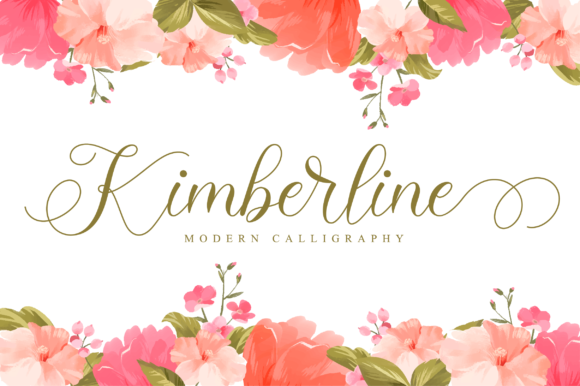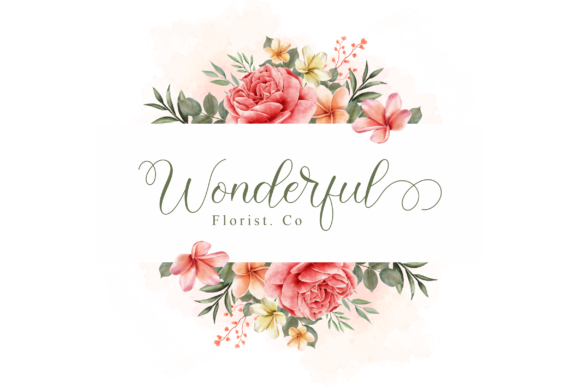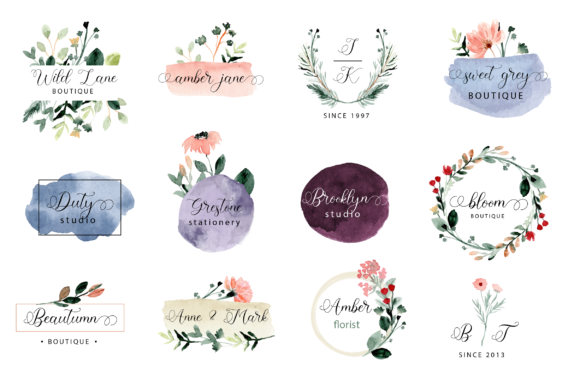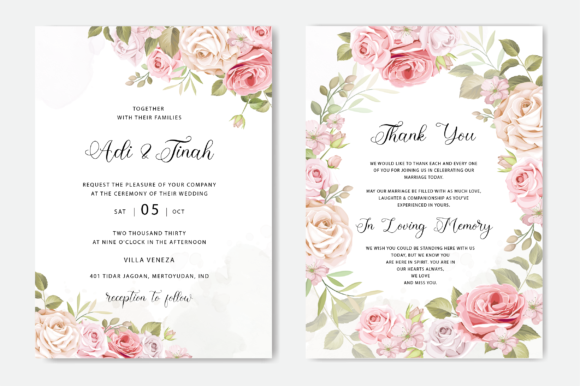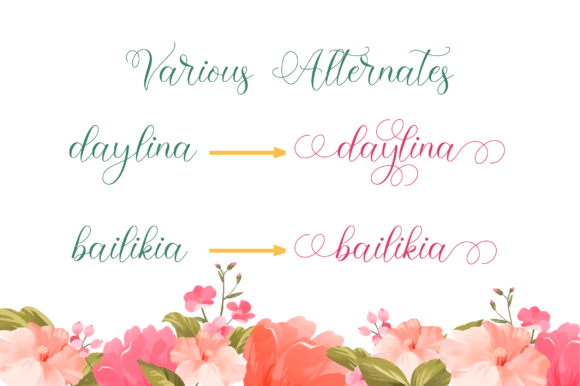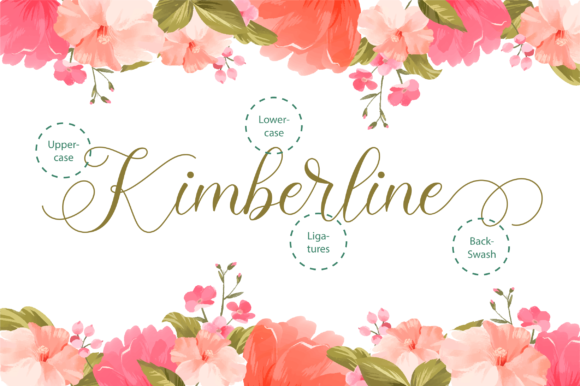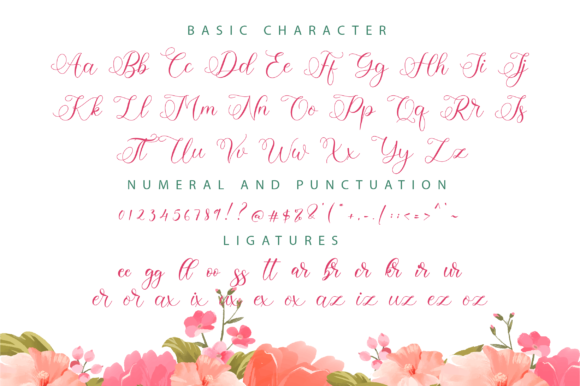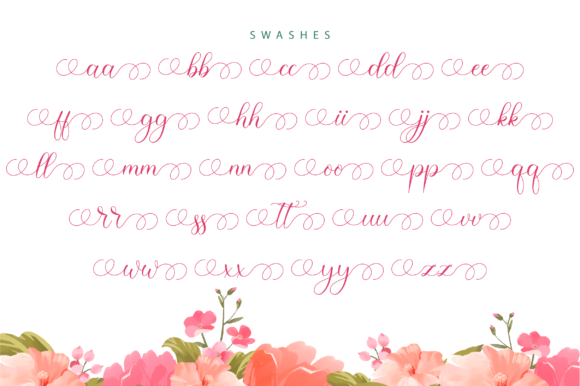
Kimberline Font
About Kimberline Font
Kimberline is a beautiful and elegant script font. Fall in love with its authentic feel and use it to create gorgeous wedding invitations, beautiful stationary art, eye-catching social media posts, and cute greeting cards.